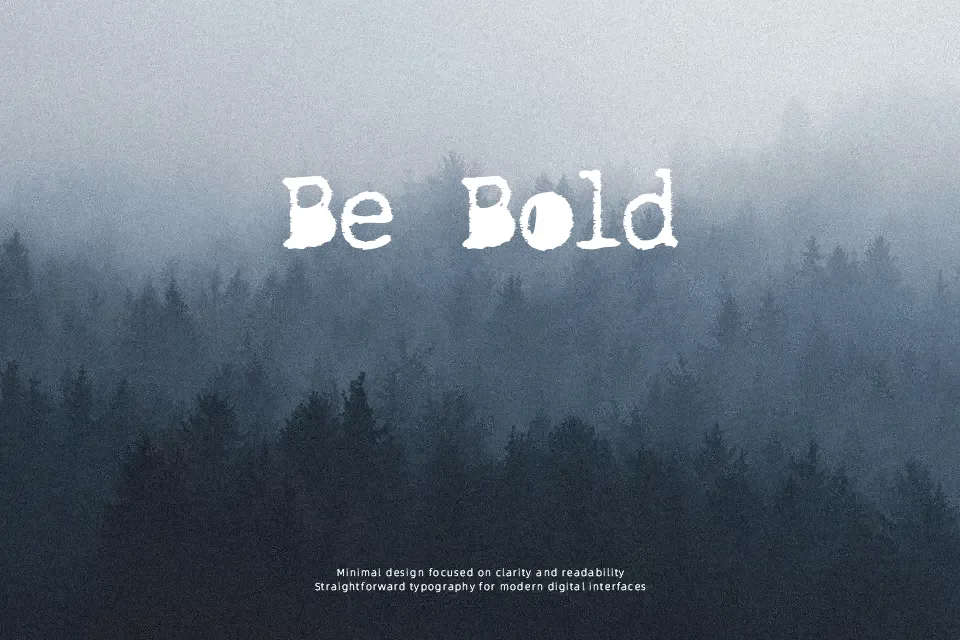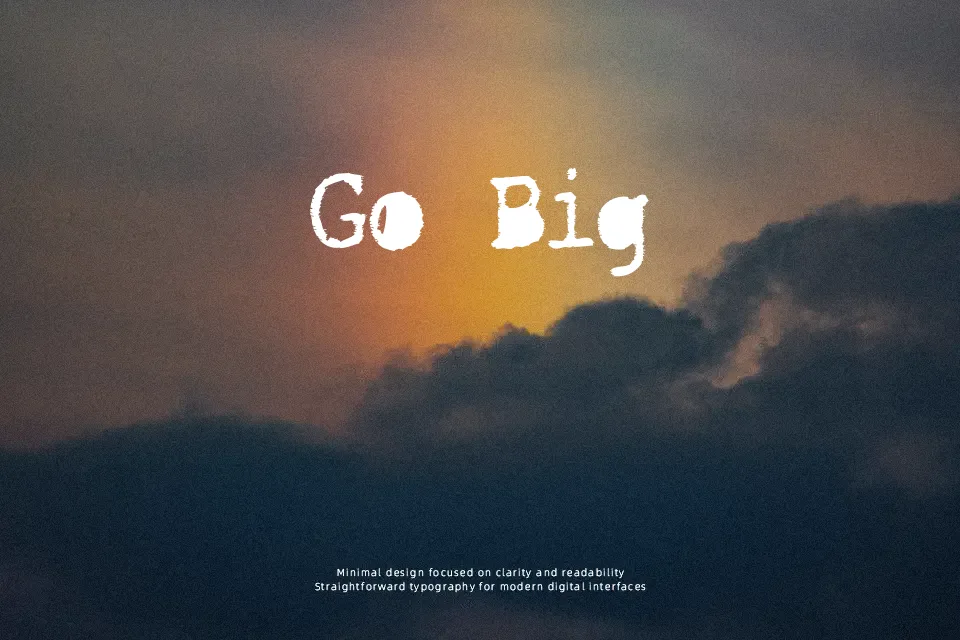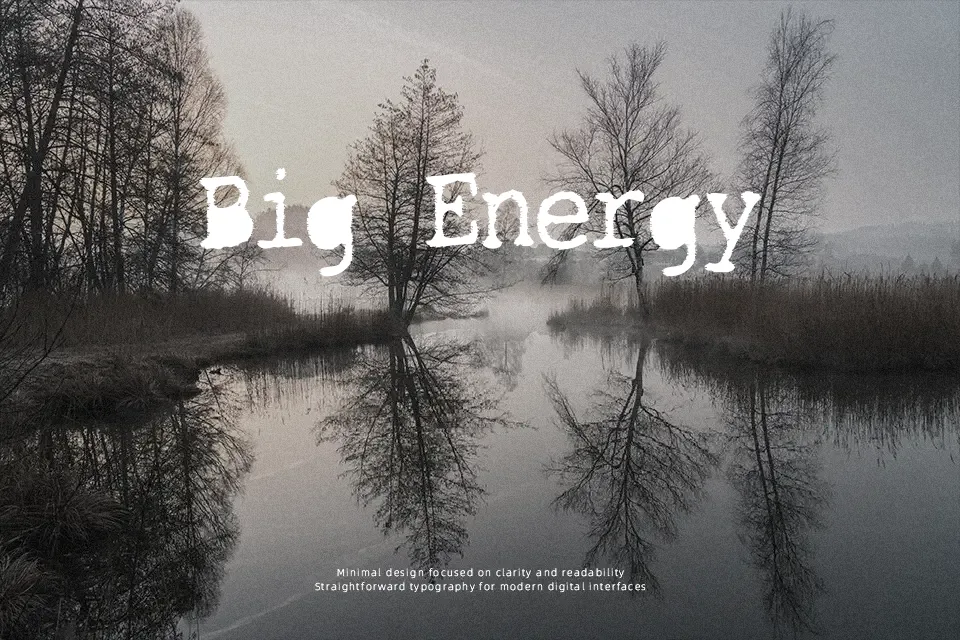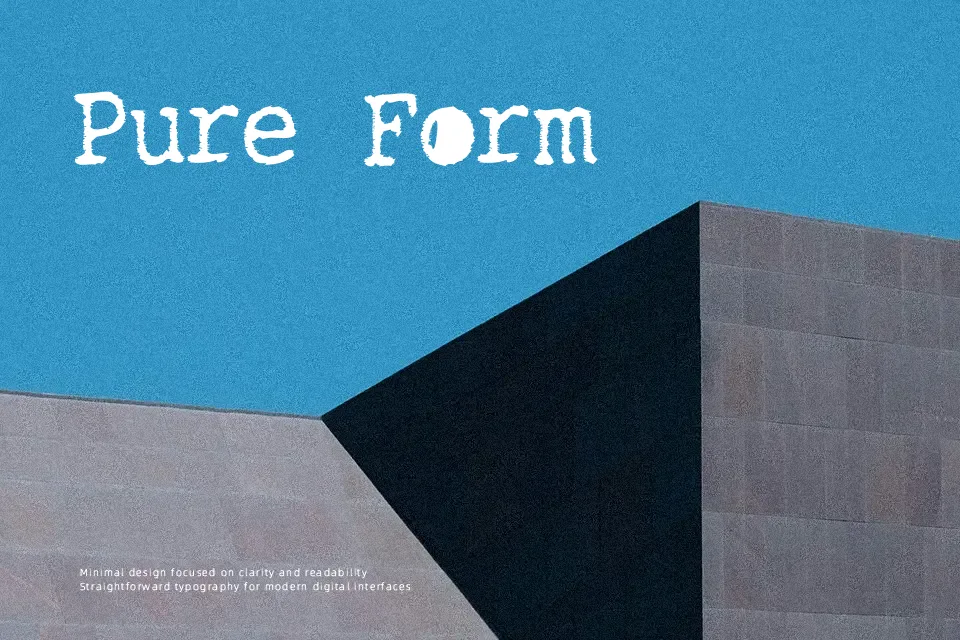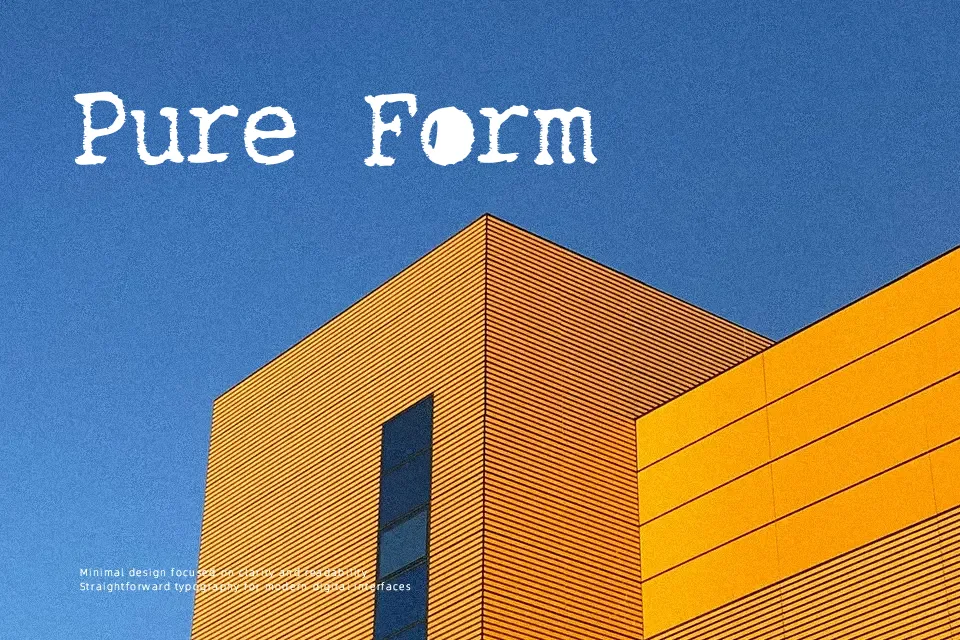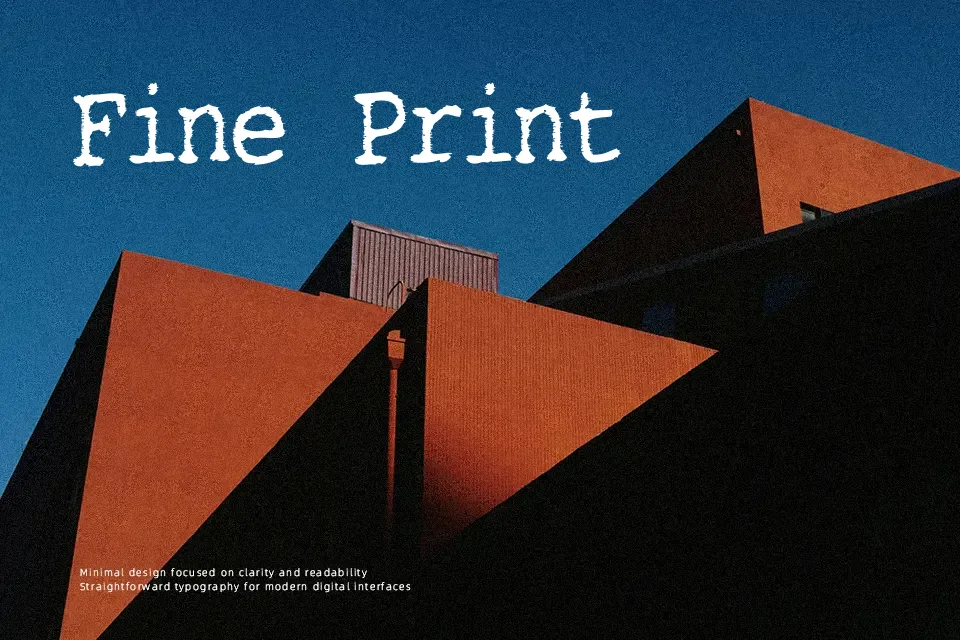
Tight Writer Font
Designed by Florian Mihr
Tight Writer Font performs best when displayed at larger sizes where its mechanical structure commands immediate attention. The letterforms showcase unyielding monoline strokes anchored by blunt rectangular serifs, creating an unmistakable keystroke cadence. Unlike traditional monospaced typewriter typefaces, the design incorporates narrower character proportions and tighter spacing between glyphs, which prevents loose gaps across short lines of text. This visual rhythm creates excellent legibility for retro book jackets, historical documentary graphics, and thematic branding. However, the dense rhythm and dark texture become overwhelming in continuous reading environments. Small captions also lose clarity, making the typeface unsuitable for extended body copy.
Best For: vintage product packaging, retro book covers, editorial headline spreads
Not Ideal For: long paragraph text, small interface labels, dense legal documents
Perfect for editorial, headline, and packaging, with a creative and display style.